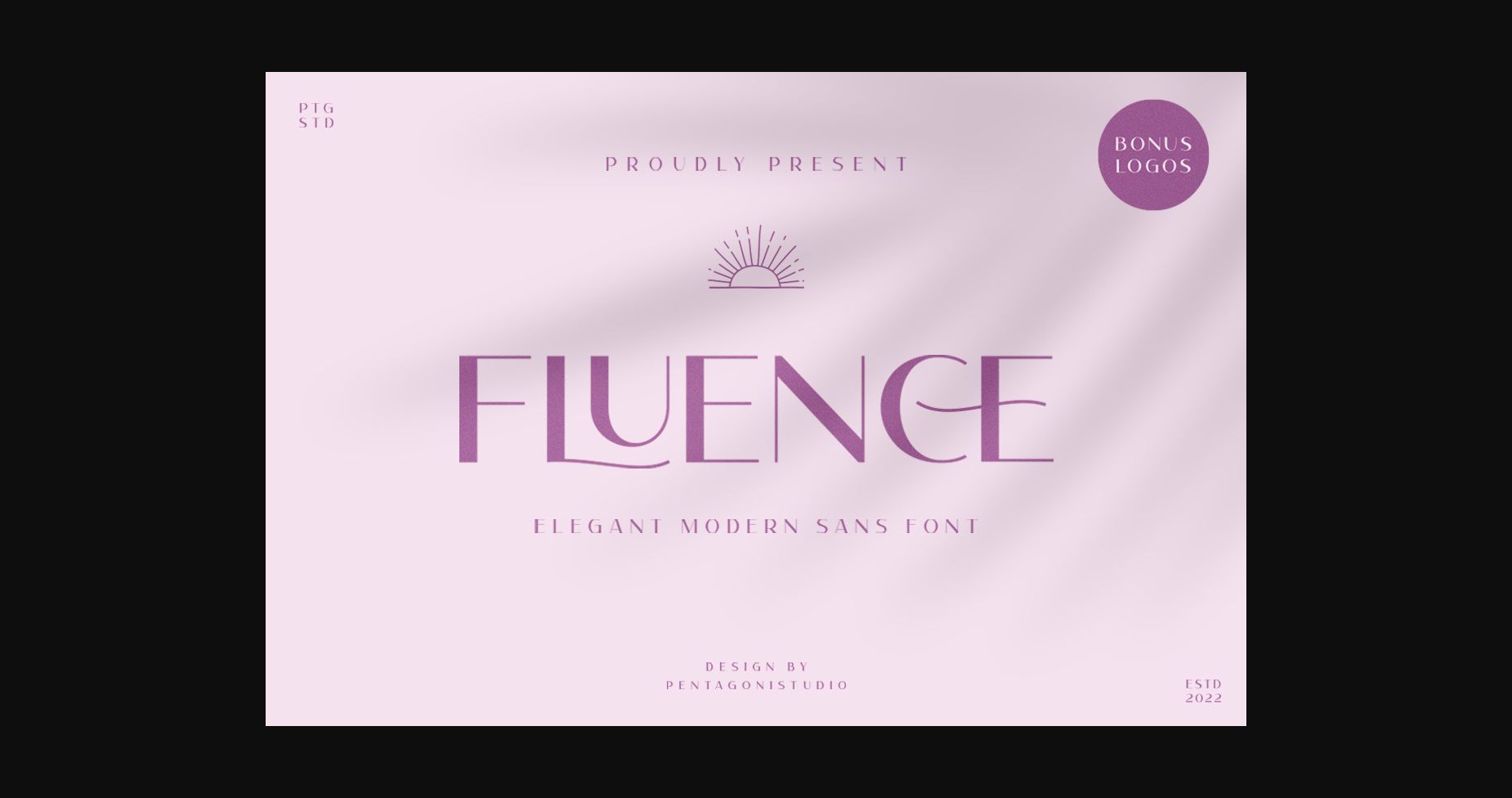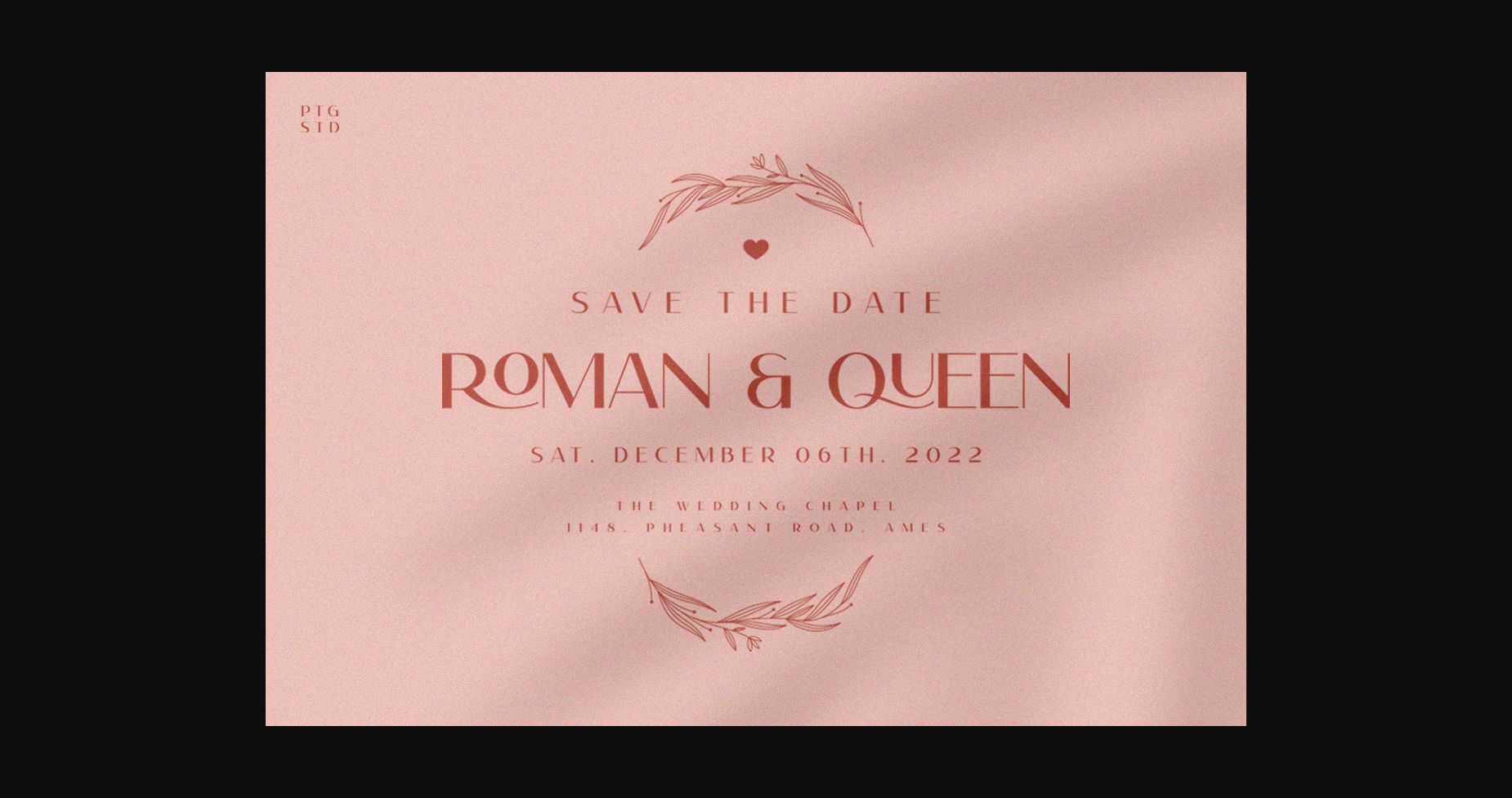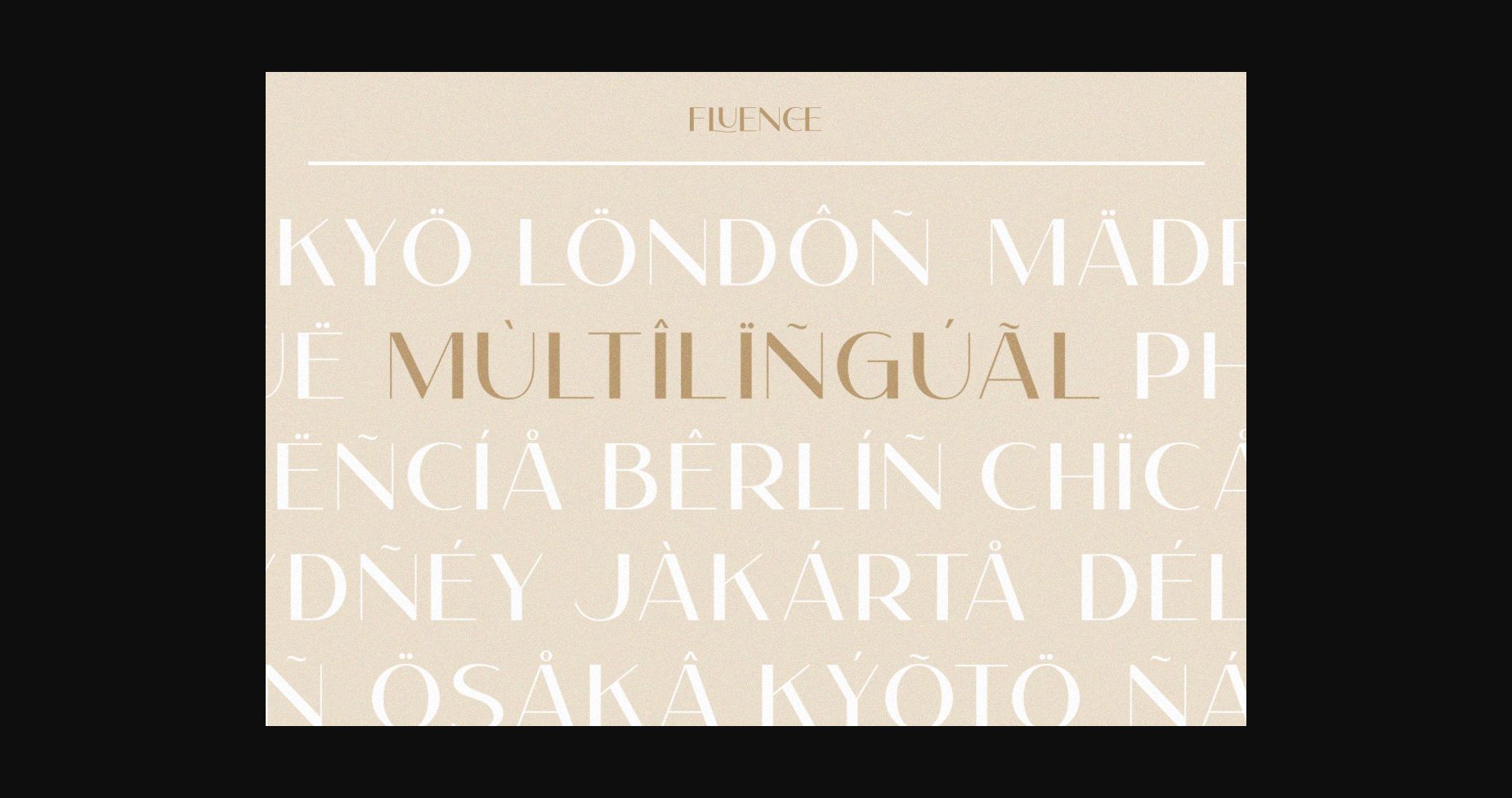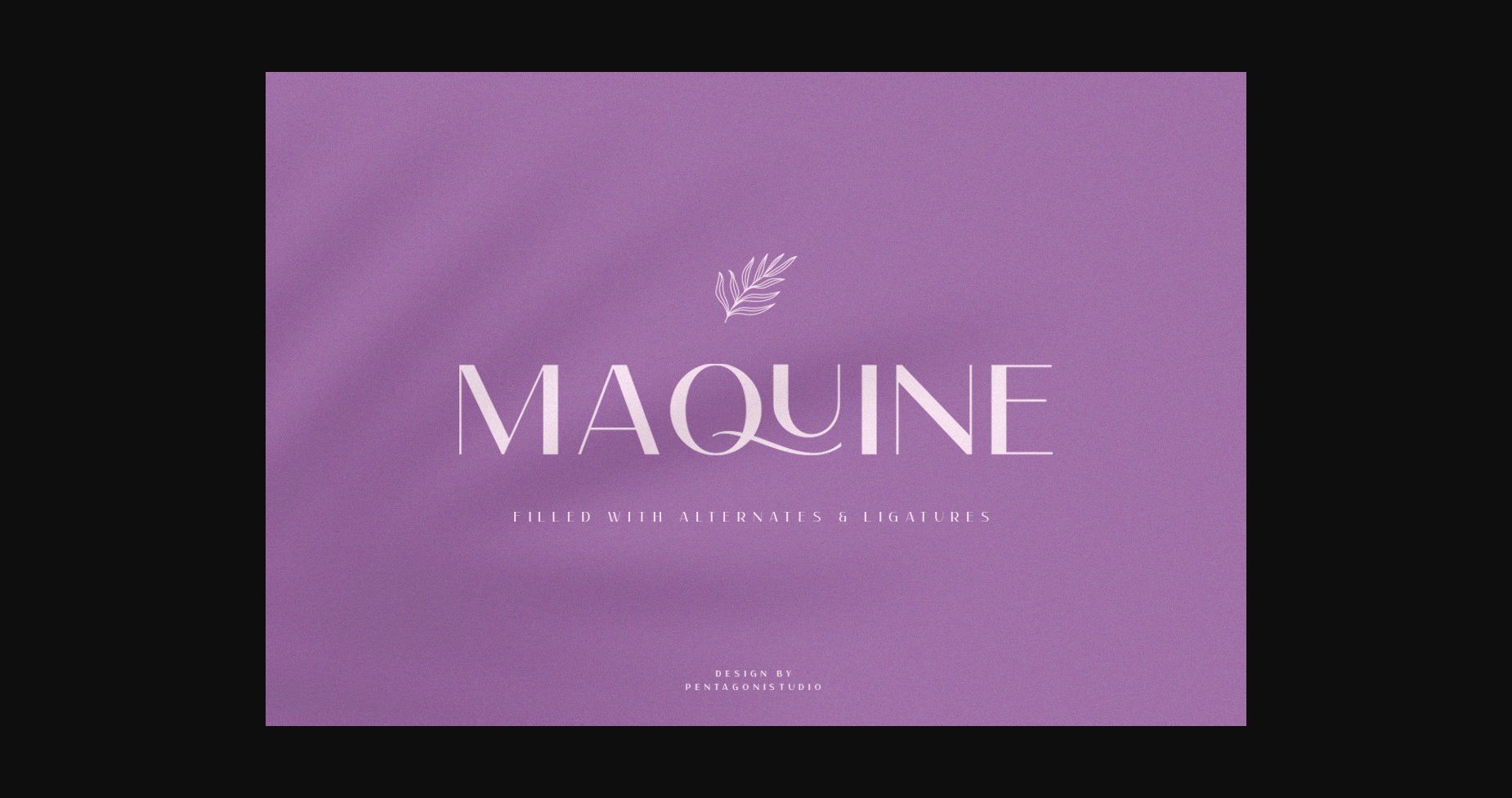
About Fluence Font
Fluence is an elegant and clean sans serif font. It works well in a variety of design ideas, wedding invitations and more. This font is PUA encoded which means you can access all of the glyphs and swashes with ease!